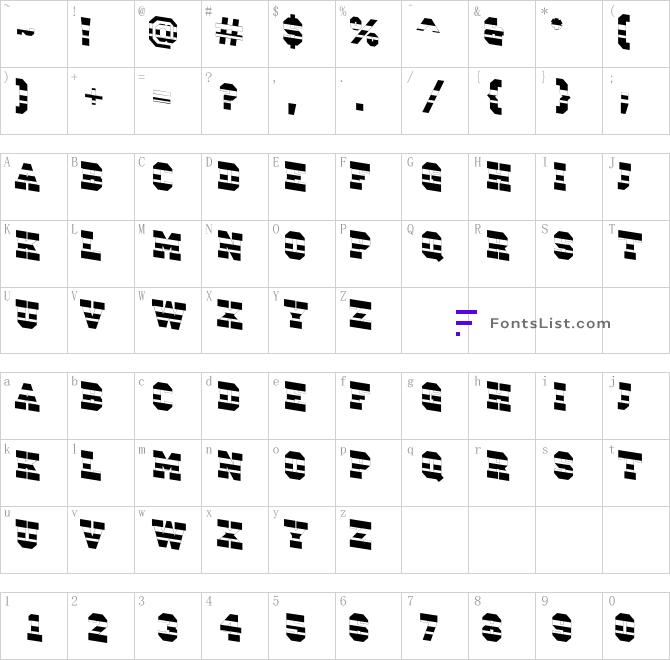
- Font Name:a_CampusStripDn
a_CampusStripDn.ttf is a very beautiful artistic font, a_CampusStripDn.ttf is widely used in the design and printing of various books and pictures,a_CampusStripDn.ttf has a strong visual impact,a_CampusStripDn.ttf is a commonly used font in newspapers, magazines and books, and is used in posters, e-commerce Poster design, store design, logo design, font design and other fields.a_CampusStripDn.